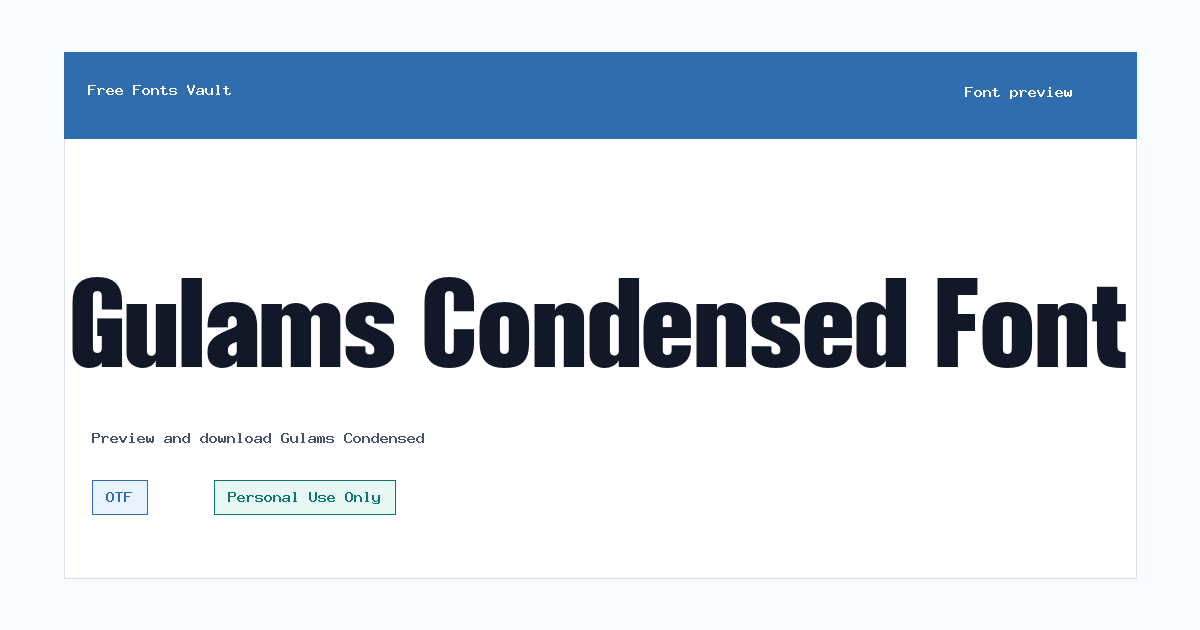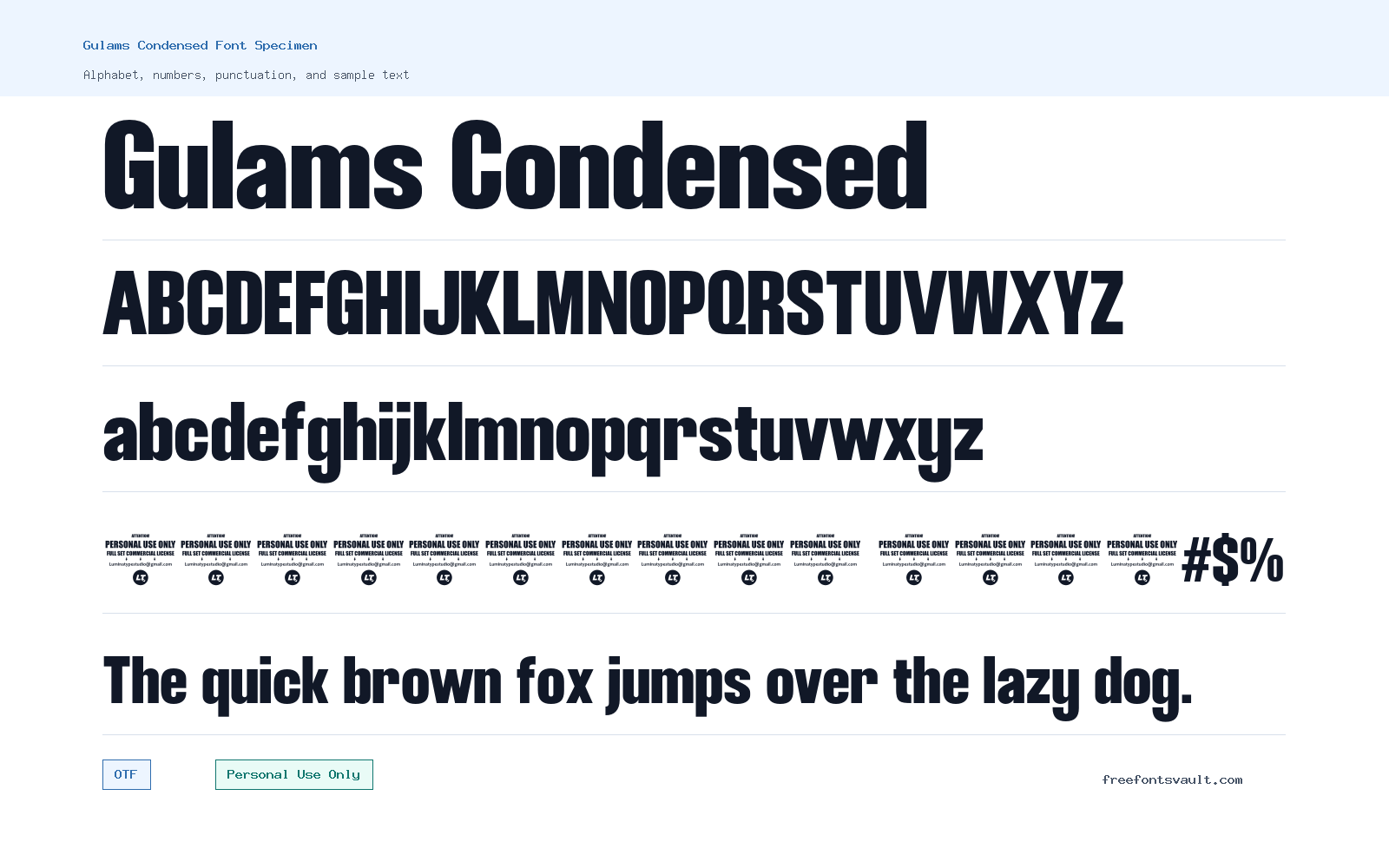
Gulams Condensed
Gulams Condensed is a bold condensed sans serif font with a narrow build and strong display presence. It is best suited to short text where you want height, weight, and impact without using too much horizontal space.
About Gulams Condensed
The Gulams Condensed family is represented by an OTF demo font file in an extra-bold style. Its compressed letterforms make it useful for titles, posters, cover text, social graphics, banners, and other layouts where a wide font would feel too loose. Because the font is condensed and heavy, it can create a strong headline shape even in a small design area. Try it first with uppercase words, short phrases, and brand-style lockups to see how the spacing behaves.
For practical use, keep Gulams Condensed focused on display text rather than long paragraphs. The narrow structure and heavy weight can reduce comfort in body copy, especially at small sizes or in crowded layouts. It works better when given enough line height and clean contrast around it. If you are testing it in the preview box, check numbers, punctuation, all-caps words, and mixed-case text before using it in a finished design. Pair it with a simpler, more open sans serif for descriptions, captions, or supporting copy.
- Condensed sans serif letterforms that save horizontal space in headline layouts
- Extra-bold OTF demo style suited to short display text and strong titles
- Posters, banners, covers, thumbnails, and social media graphics
- Compact headlines, short labels, logo-style drafts, and promotional text for personal projects
Use the preview tool to test your exact wording before downloading. Condensed extra-bold fonts can look tight in longer phrases, so adjust tracking, line height, and size carefully. For best readability, use it for short headings and combine it with a cleaner text font for supporting information.
What kind of designs fit Gulams Condensed best?
It works best for short display text such as posters, titles, banners, thumbnails, and compact headline layouts.
Can I use Gulams Condensed for body text?
It is not ideal for long body text. The condensed extra-bold style is easier to read in short phrases, headings, and large display settings.